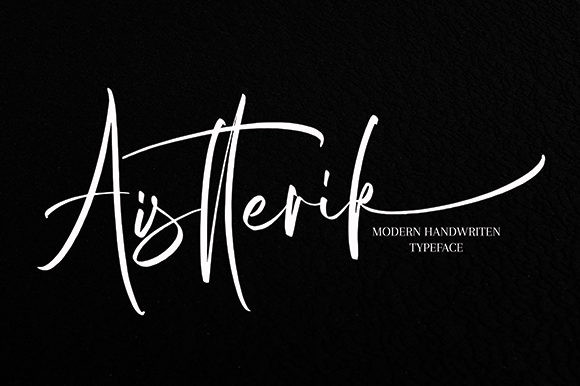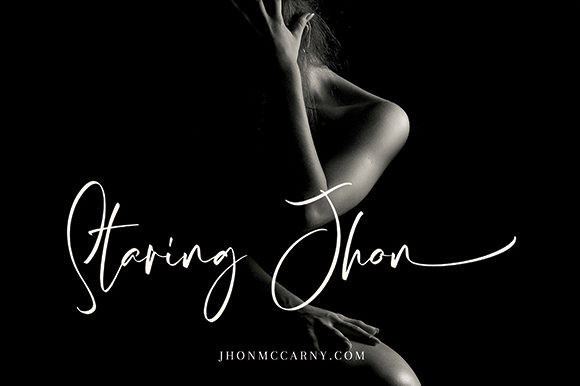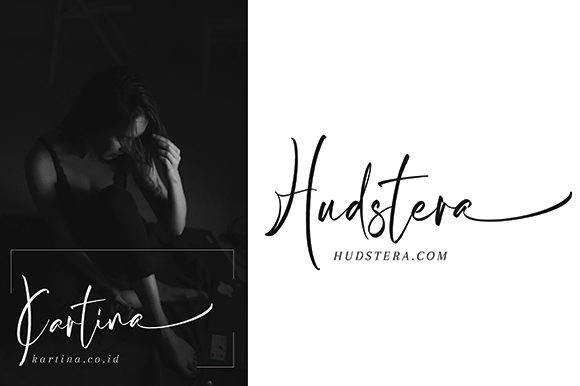
Aistterik Font
Aistterik is a stylish and incredibly elegant script font. It looks stunning on wedding invitations, thank you cards, quotes, greeting cards, logos, business cards and every other design which needs a handwritten touch. This font is PUA encoded which means you can access all of the glyphs and swashes with ease!